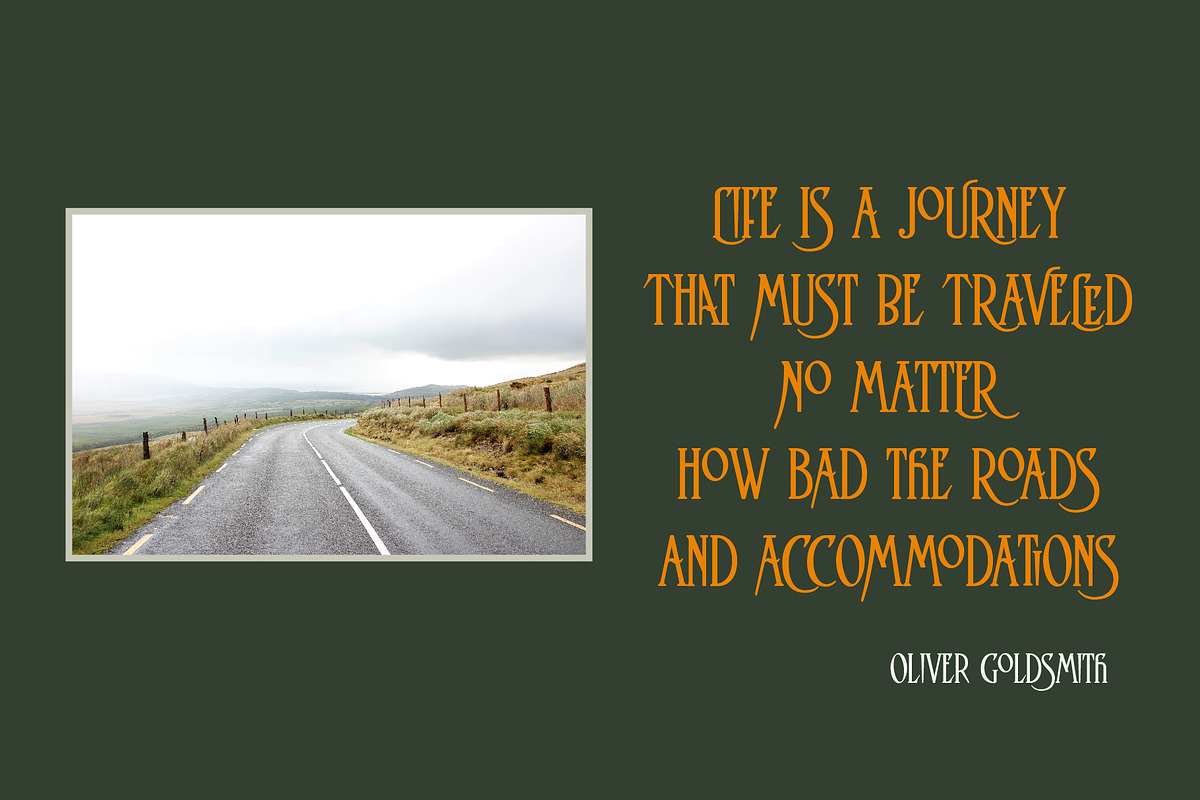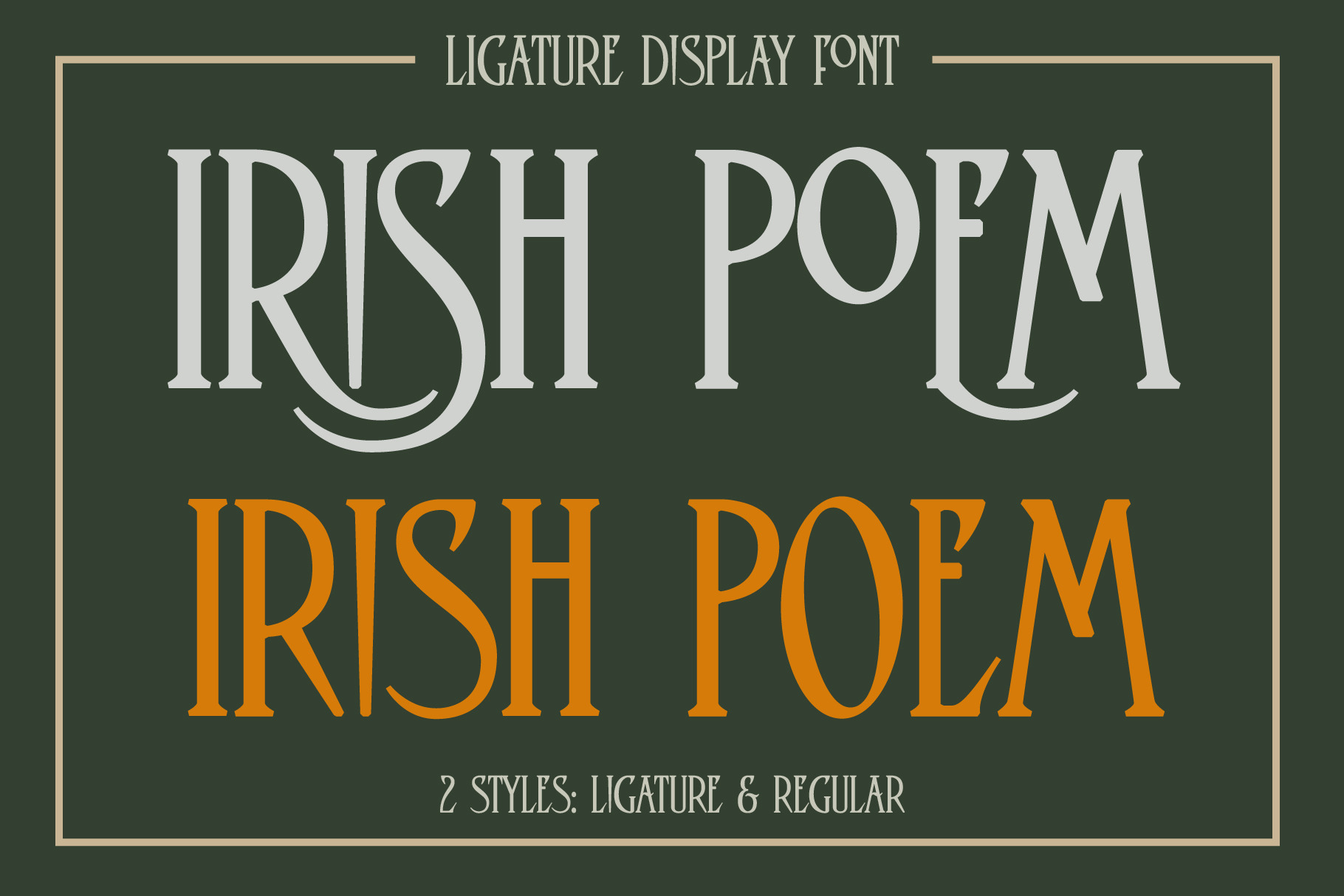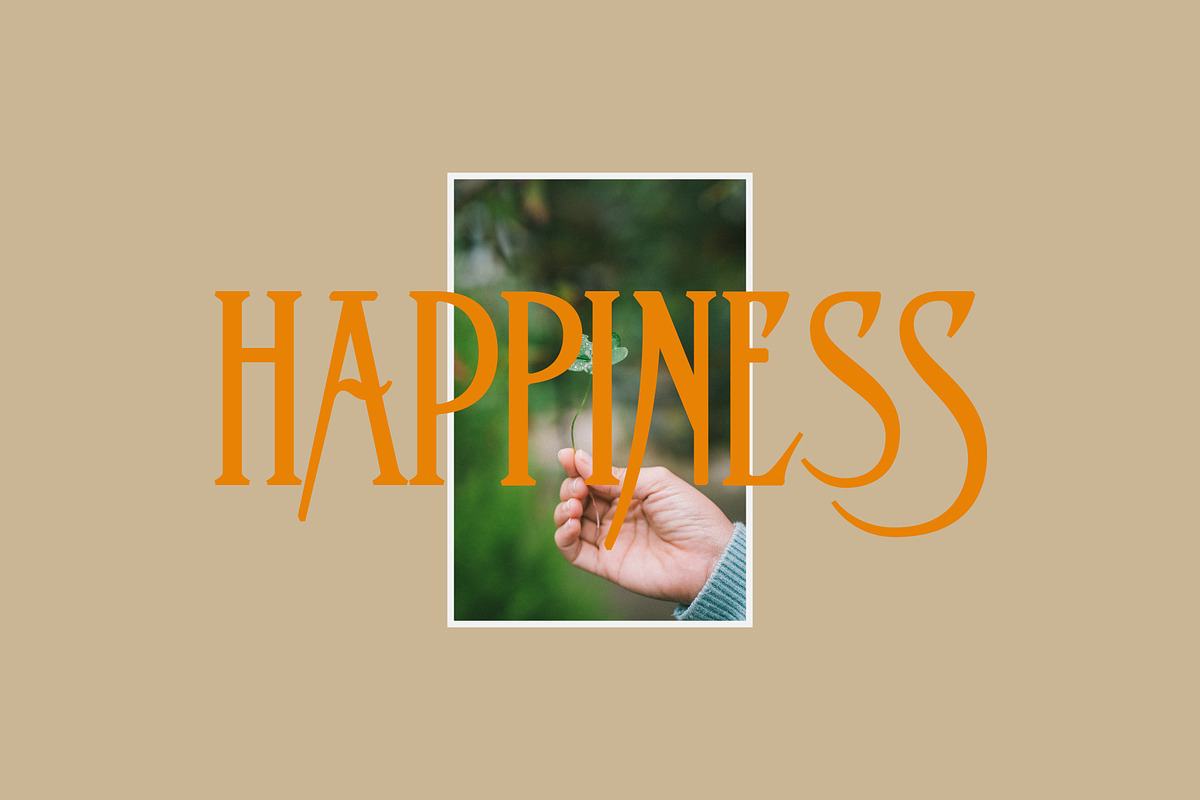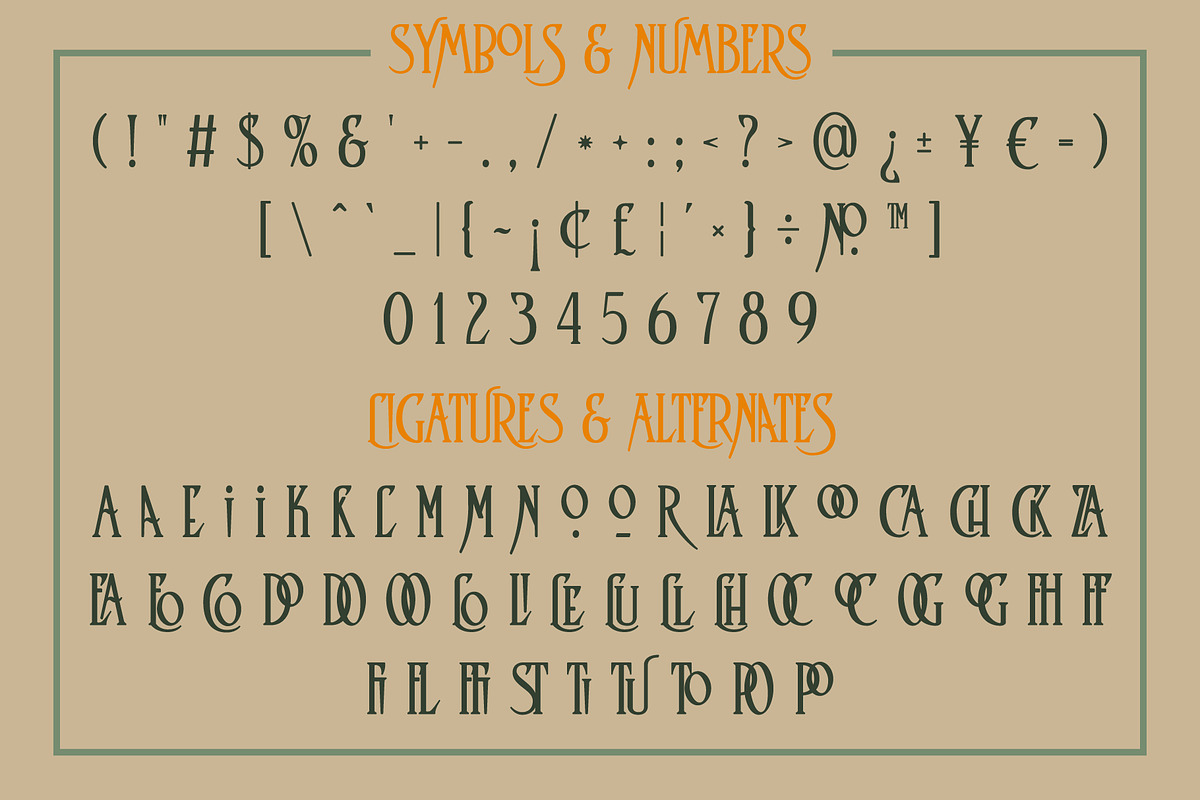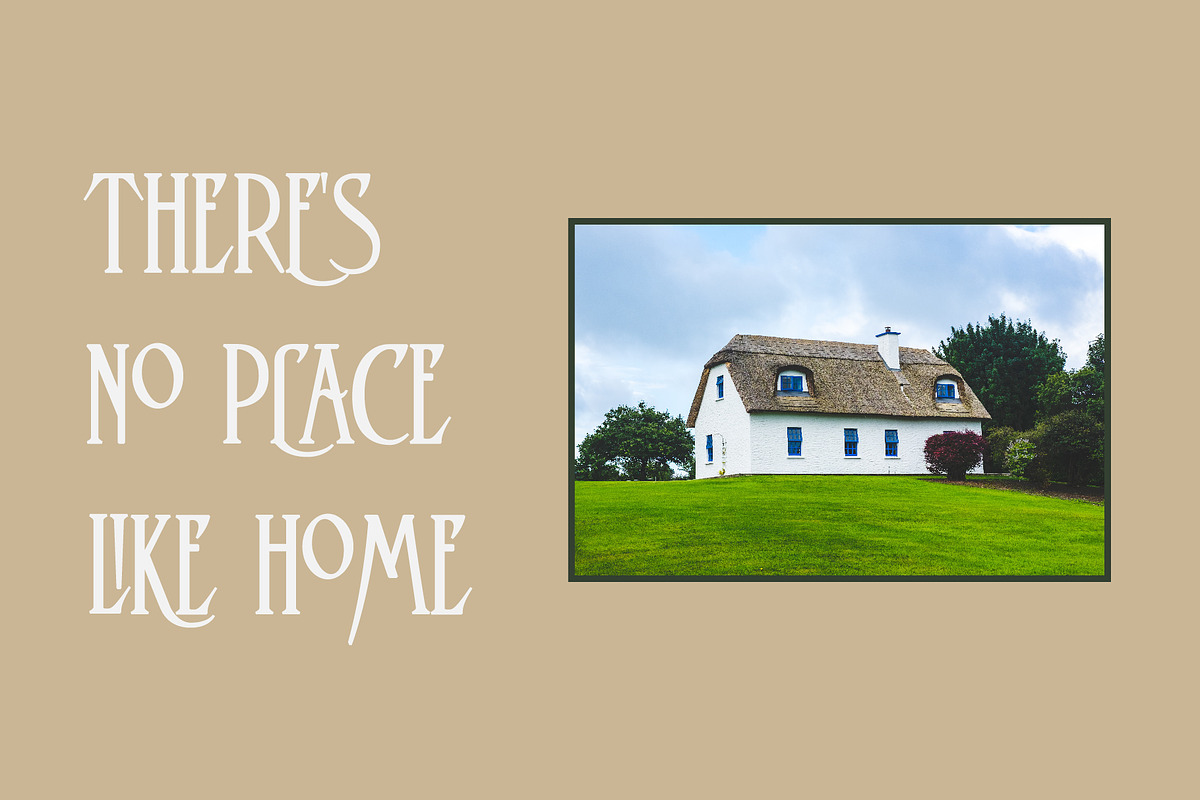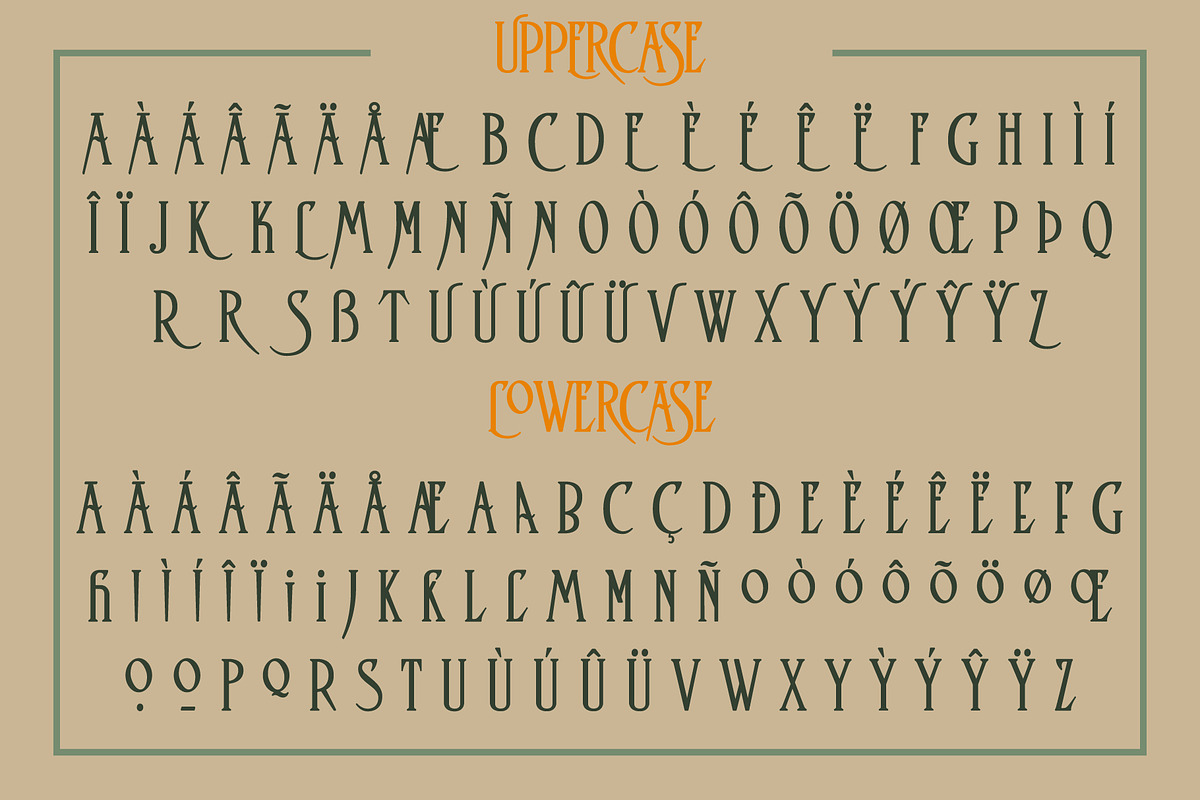
Irish Poem - Ligature Display Font
Irish Poem is a modern ligature display font with many alternates. It was inspired by a short Irish poem found in an old book. Irish Poem is great for logos and branding, posters, signs, labels and more! Enjoy!
- Irish Poem Regular (without ligatures)
- Irish Poem Liga (with ligatures)